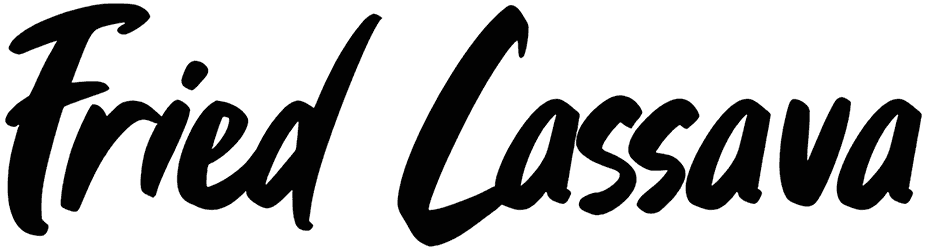
Fried Cassava Font
Since you have to convey multiple complicated messages through your graphic content, you must be very attentive in the realm of selecting a suitable script font for your projects.
Aside from not fully supporting numbers, a marvelous handwritten font such as the Fried Cassava can be your faithful assistant for designing movie posters, stickers, product packaging, flyers, or billboards. Due to its rounded letters, it can evoke a sense of personalization, dreaminess, softness, or momentum in the audience’s minds.